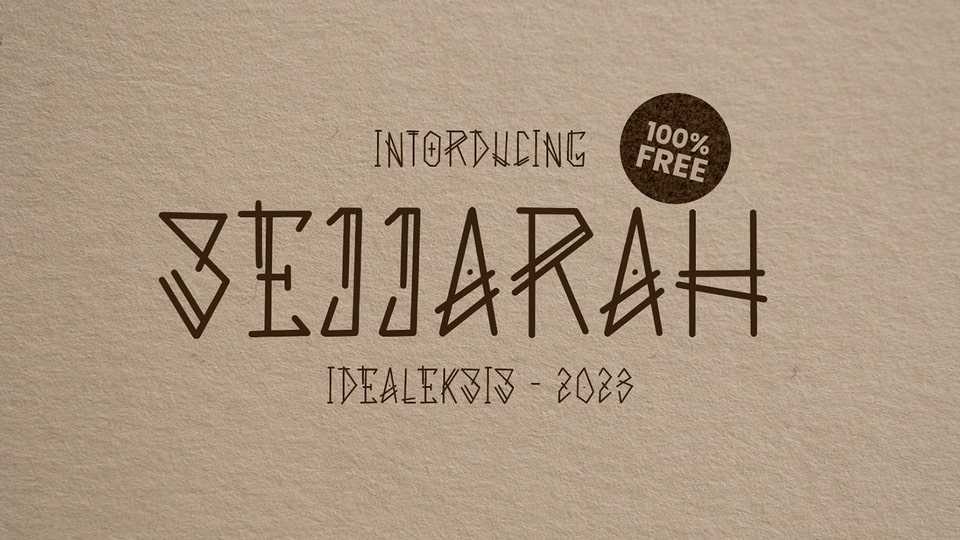
Download Sejjarah font, a decorative multi-line typeface that transforms text into a vibrant celebration of lines and shapes. Sejjarah font is perfect for projects that demand a decorative and energetic aesthetic.
Designer: Ideal Eksis